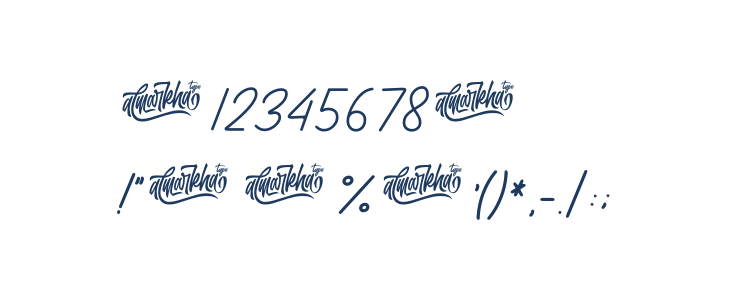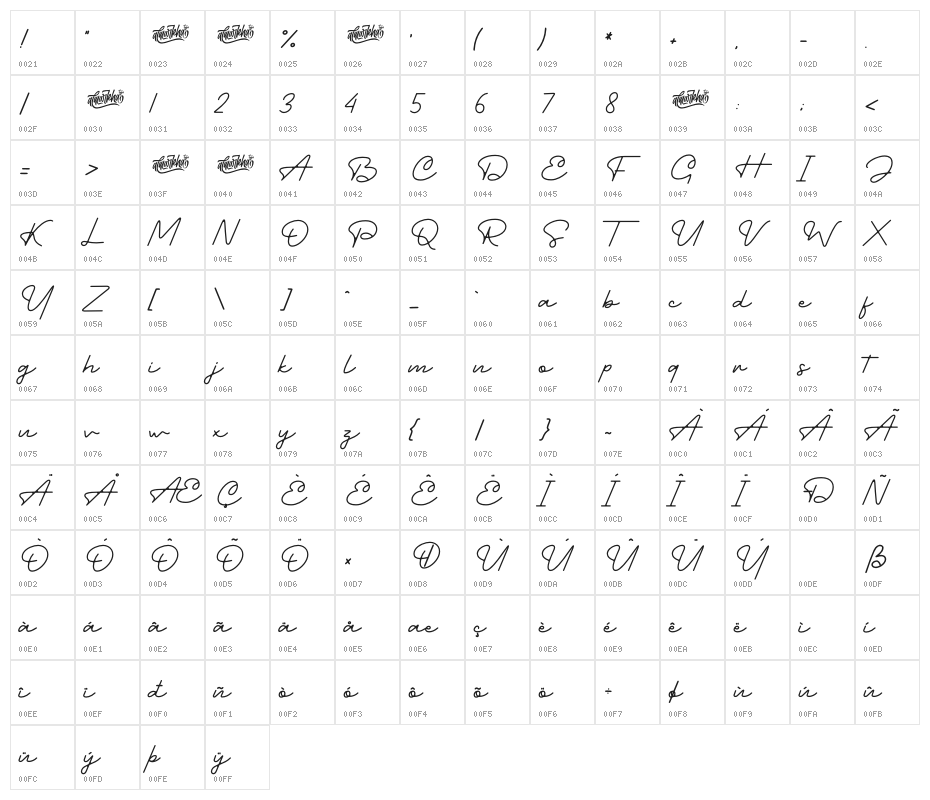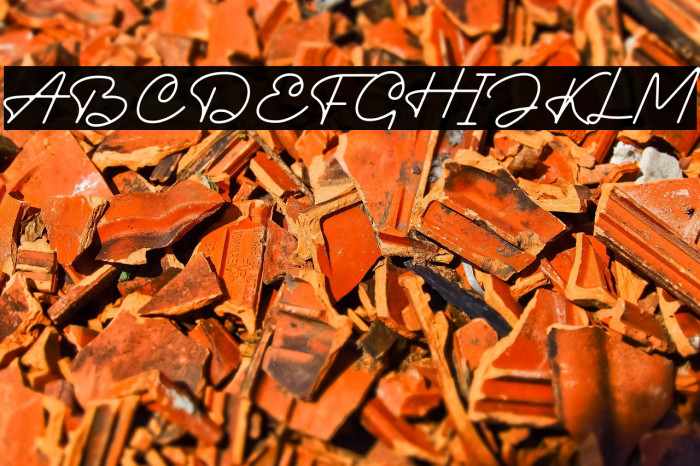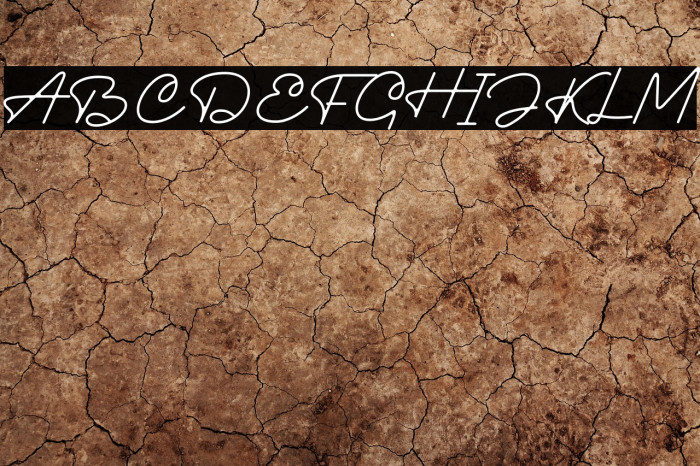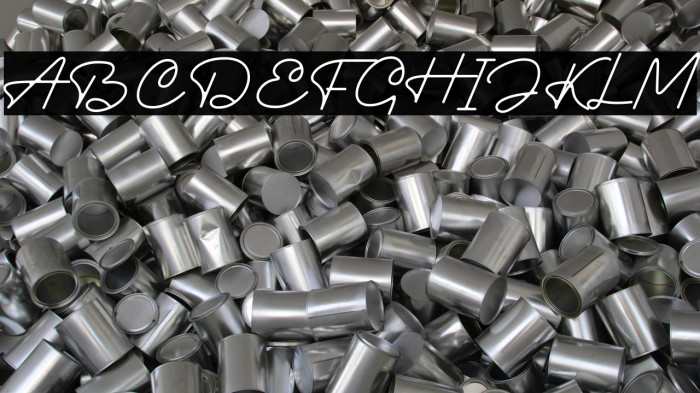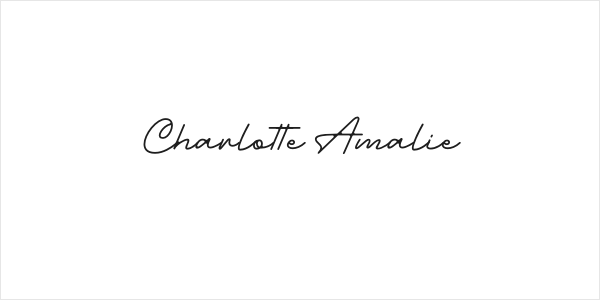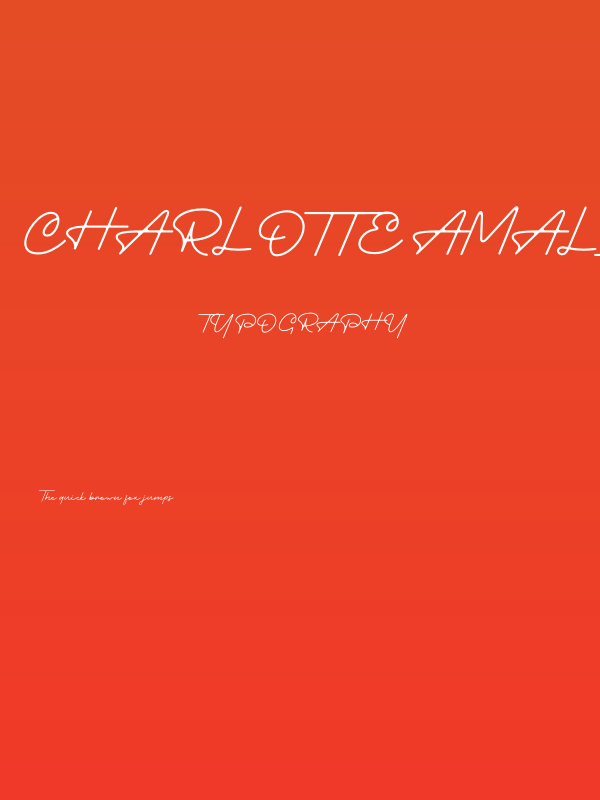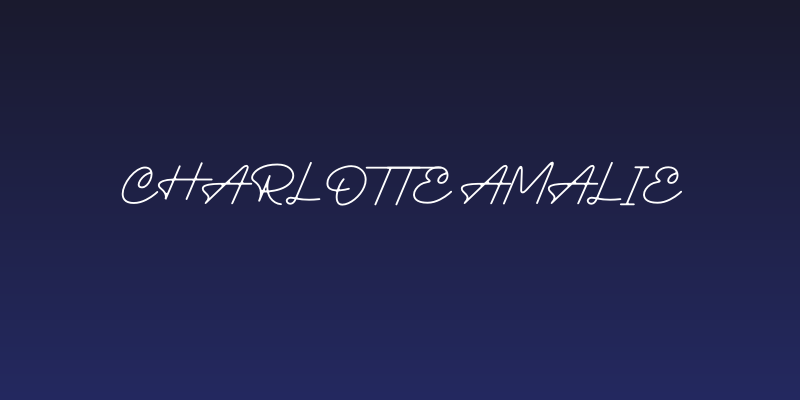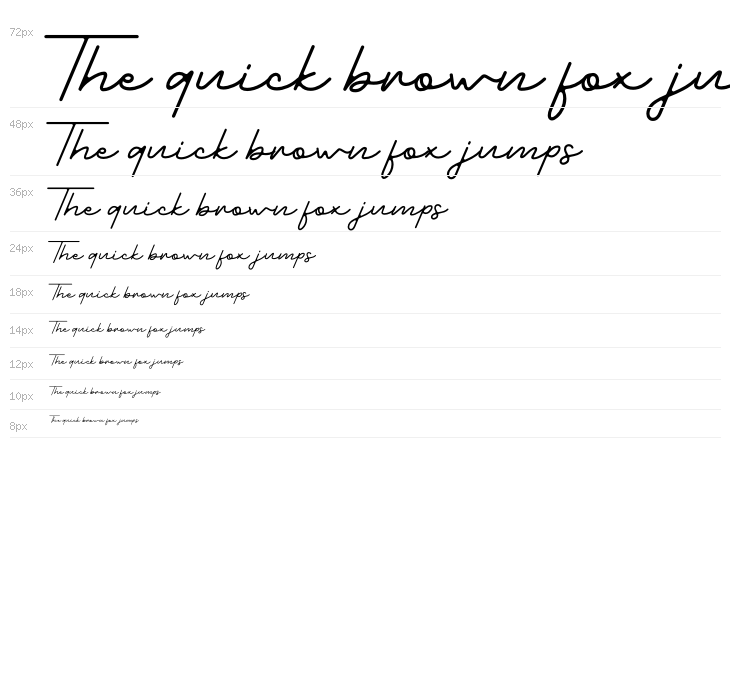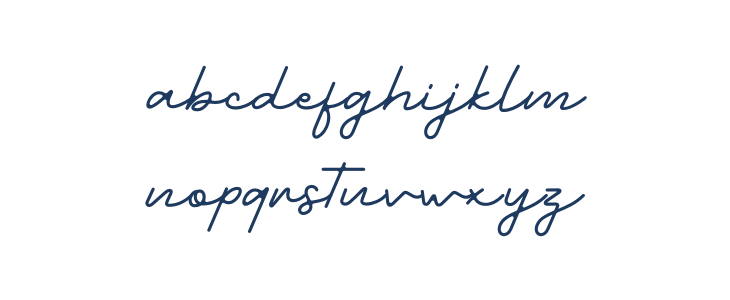
Charlotte Amalie Font
Charlotte Amalie Description
This font features a fluid and elegant script style, characterized by its smooth, flowing lines and cursive nature. The uppercase letters are distinct with a slight slant, while the lowercase letters maintain a consistent rhythm and balance. The numerals are clear and legible, complementing the overall script style. Special characters are integrated seamlessly, maintaining the font's cohesive appearance. This font exudes a sense of sophistication and grace, making it suitable for formal and creative applications.